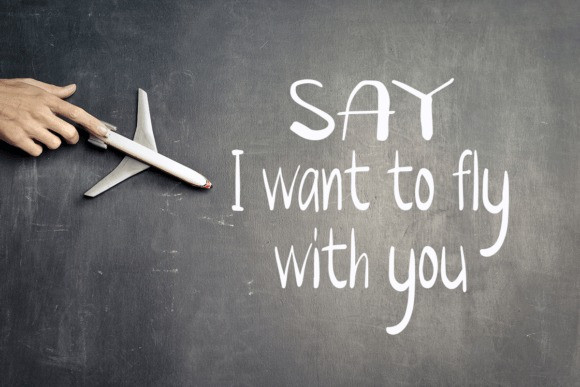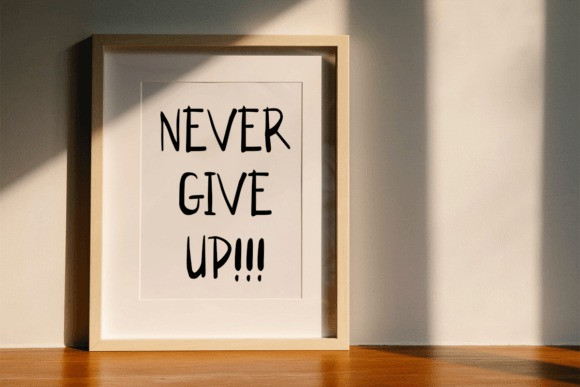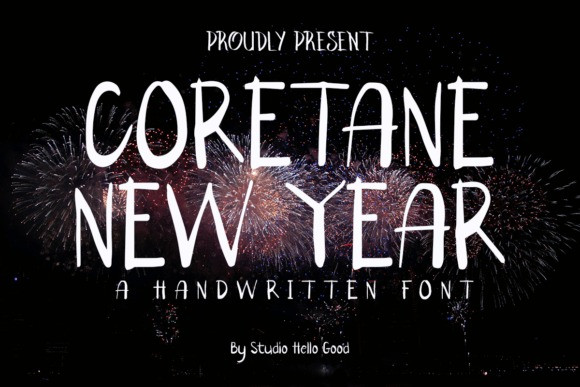
Coretane New Year Font
Coretane New Year Font a whimsical and enchanting celebration designed especially for the young ones! Immerse yourself in a world of vibrant colors, playful designs, and delightful festivities that make this font perfect for kids.
The Coretane New Year font is a cheerful blend of curvy lines and lively characters, capturing the essence of joy and excitement that comes with the arrival of the new year in the Coretane tradition. Each letter is adorned with whimsical details, reminiscent of the magical moments that make childhood so special.